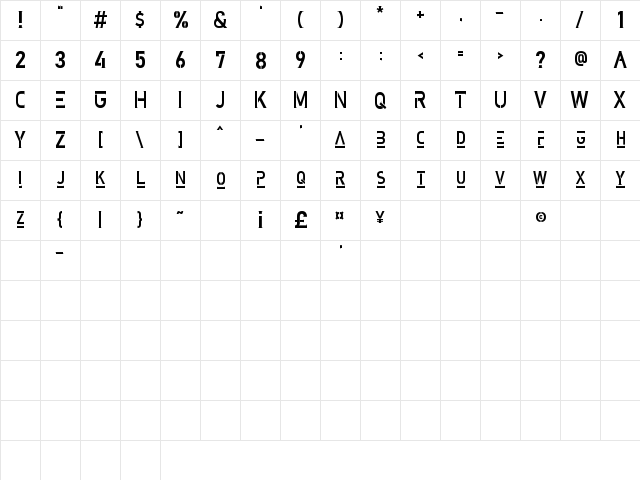
Gobern Regular
Design Context for Gobern Typeface
Gobern is a composed and adaptable typeface that performs quietly and consistently across a wide range of design contexts.
Pro Tip: Pair Gobern with a font of contrasting weight or personality to build a more expressive typographic hierarchy.